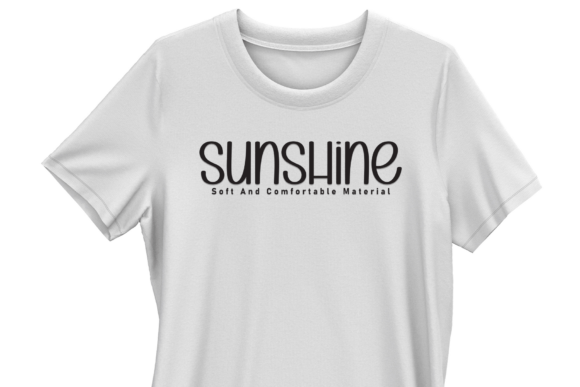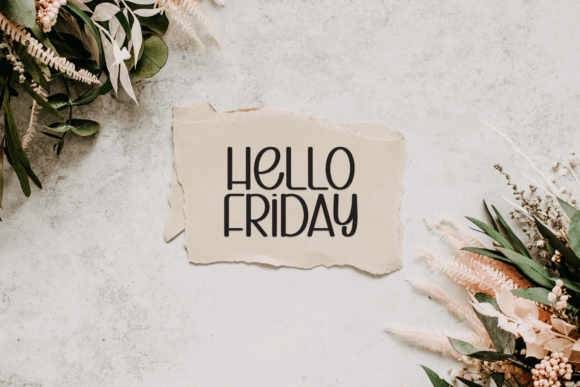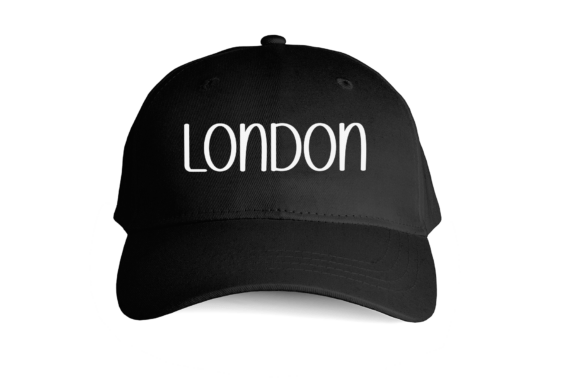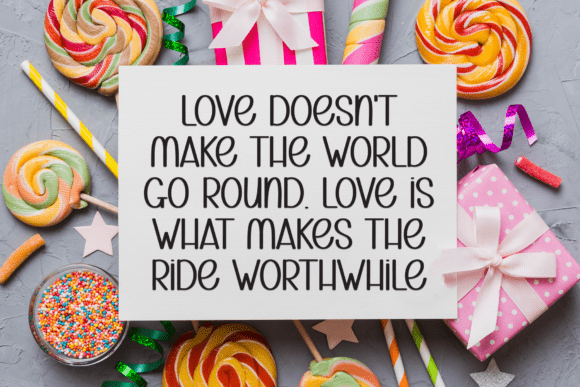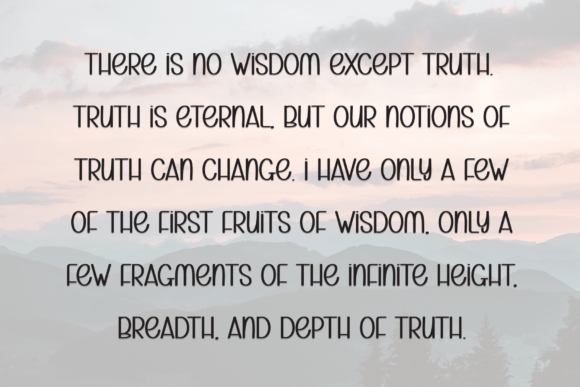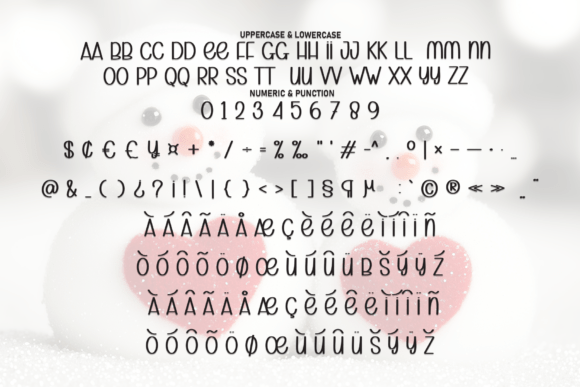
Introduction to Love Snowman Font
Have you ever found yourself stuck in a design rut, yearning for that perfect combination of charm and whimsy to bring your creative project to life? I’m sure you have. We’ve all been there. It’s in these moments that we stumble upon the perfect design resource – one that sets our imagination ablaze and makes our hearts skip a beat. For me, that moment came when I discovered the enchanting Love Snowman Font.
This captivating handwritten display font is a true gem, exuding a warm, sociable aura that’s impossible to resist. Whether you’re crafting wedding invites, sentimental cards, or any other design venture that calls for a playful element, the Love Snowman Font is the perfect companion to help you infuse your ideas with a lively zest. With its high-quality design and transparent background, this font is an absolute must-have for any designer looking to elevate their work.
Key Features of Love Snowman Font
- High-quality design for creative projects, perfect for winter-themed or festive designs.
- Includes a range of unique snowman designs, from classic to modern and playful, offering endless creative possibilities.
- Perfect for use in greeting cards, posters, social media graphics, and other design projects that require a fun and festive touch.
Honest Review: Love Snowman Font
As a designer, I’ve had the chance to work with a wide range of fonts, but the Love Snowman Font has caught my attention. I decided to give it a try, and here’s my honest review.
- Unique and playful design: The Love Snowman Font has a distinct, whimsical feel that’s perfect for creative projects.
- Limited character set: The Love Snowman Font has a limited character set, which may not be suitable for longer texts or formal documents.
- Not ideal for small text: The font’s design can make it difficult to read at smaller sizes.
Overall, the Love Snowman Font is a great addition to any designer’s toolkit. While it may have some limitations, its unique design and free availability make it a valuable resource for creative projects. I’d definitely recommend it for fun, informal designs, but may not be the best choice for formal or lengthy texts.
Tips for Getting the Most Out of Love Snowman Font
Love Snowman Font is a high-quality design resource that can be used in a variety of creative projects. To get the most out of it, consider the following tips:
1. Use it on a transparent background for a more modern look.
2. Experiment with different font sizes and styles to create visual interest.
3. Combine it with other design elements, such as graphics and images, to create a unique look.
Love Snowman Font is a versatile design resource that can be used in a variety of creative